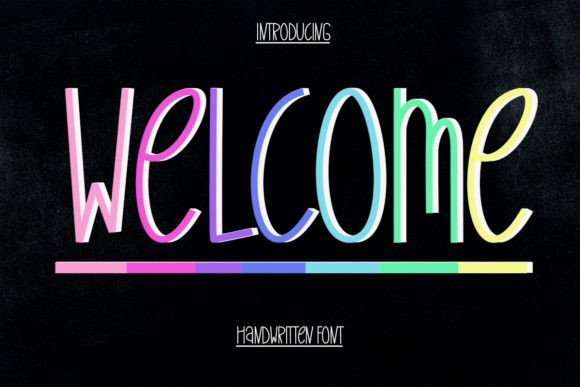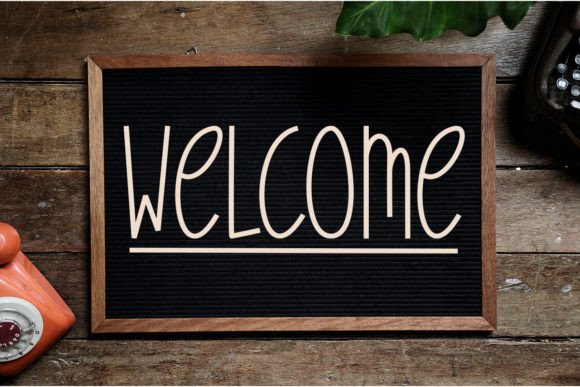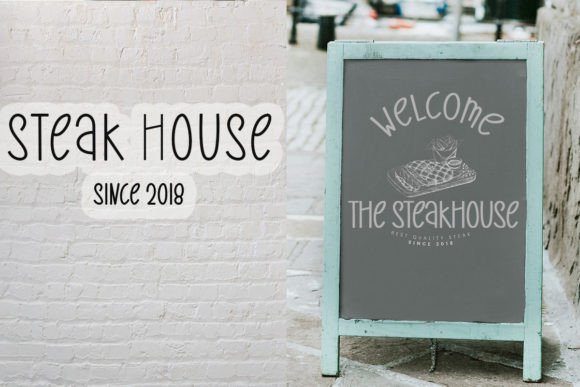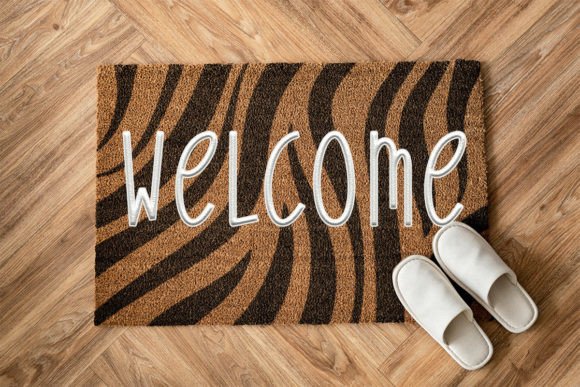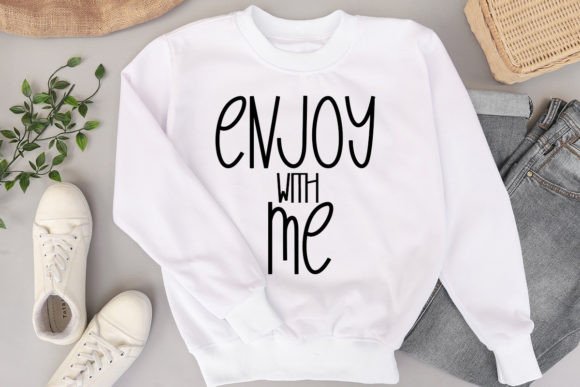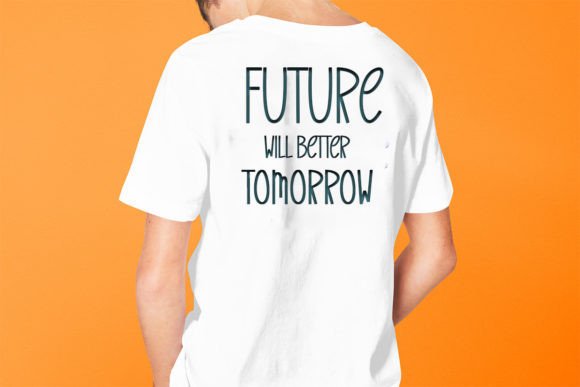
Welcome Font
About Welcome Font
The Welcome Font Download is a quirky and playful handwritten typeface that adds charm and creativity to your projects. With its unique letterforms and casual strokes, this font feels fresh, fun, and approachable. As a result, it is an excellent choice for both personal craft projects and professional branding.
Moreover, Welcome is designed to be versatile. Whether you’re creating t-shirt designs, designing home décor, or preparing social media graphics, this font adapts beautifully. In addition, it offers strong readability across digital and print formats, making it a reliable tool for a wide range of creative ideas.
Features of Welcome Font
When you choose the Welcome Font Download, you’ll enjoy several key features:
• A quirky handwritten style with playful, unique shapes
• Smooth and casual strokes that feel authentic
• Excellent readability at small and large text sizes
• Versatility for crafts, branding, and digital use
• A fun typeface that adds personality and creativity
Best Uses for Welcome Font
The Welcome Font Download can enhance many different design contexts. For example, it works perfectly in:
• Craft projects – Add personality to handmade creations and DIY designs
• T-shirt and apparel designs – Fun, bold lettering for fashion projects
• Home décor items – Creative typography for posters, signs, and wall art
• Logos and branding – Build quirky and approachable brand identities
• Invitations and greeting cards – Add a personal and creative touch
• Blogs and websites – Style your digital space with playful lettering
• Social media graphics – Eye-catching posts for Instagram, Pinterest, or blogs
Because of its adaptability, Welcome quickly becomes a favorite for designers who want a lighthearted, fun look.
Why Choose Welcome Font
The Welcome Font Download stands out because it blends quirkiness with usability. Unlike standard handwritten fonts, it has a unique, creative feel that makes projects more memorable. At the same time, its structure ensures clarity and balance across different formats. In addition, it works well for both professional branding and personal DIY designs.
Furthermore, Welcome is beginner-friendly and easy to use across common design software, while still polished enough to satisfy professionals. As a result, it provides both flexibility and style in one typeface.
In conclusion, the Welcome Font Download is a quirky, fun, and versatile handwritten font that enhances any project with creativity and charm. From t-shirts and home décor to branding and social media, this typeface ensures your work stands out while staying approachable and stylish.